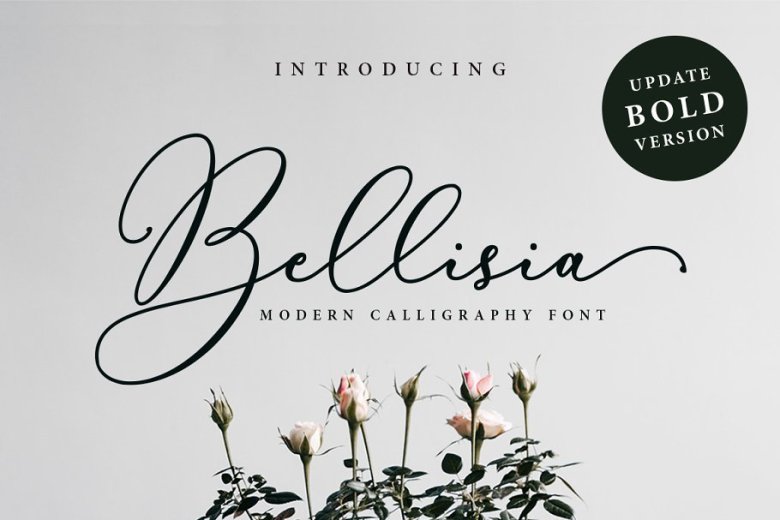
Bellisia Script Font
Bellisia Script is a modern calligraphy font. Bellisia a beautiful for logotype, website header, fashion design,wedding card design and any more.
Bellisia comes with elegant style, It also comes as a Bellisia font, and a Bellisia Italic font. It contains a full set of lower & uppercase letters, a large range of punctuation, numerals, and multilingual support.